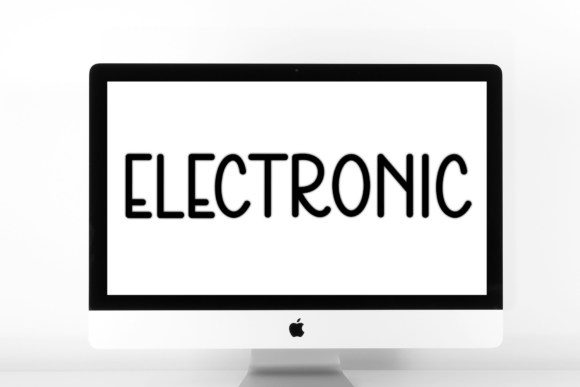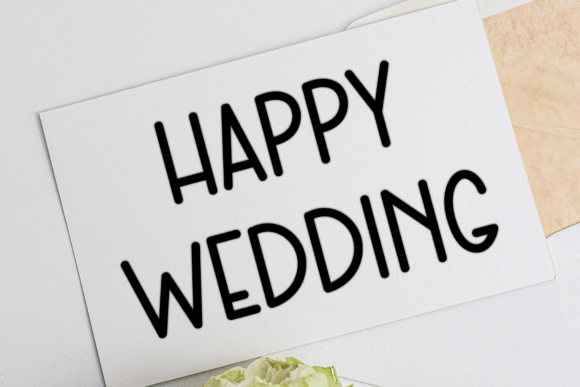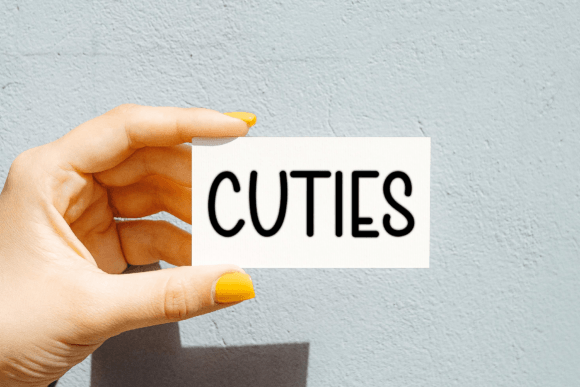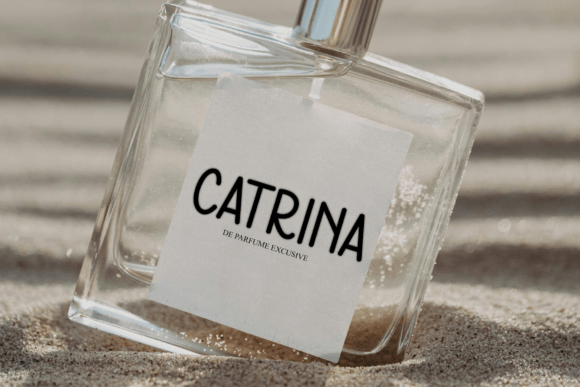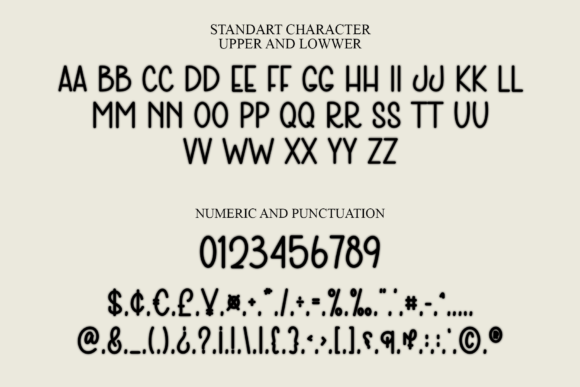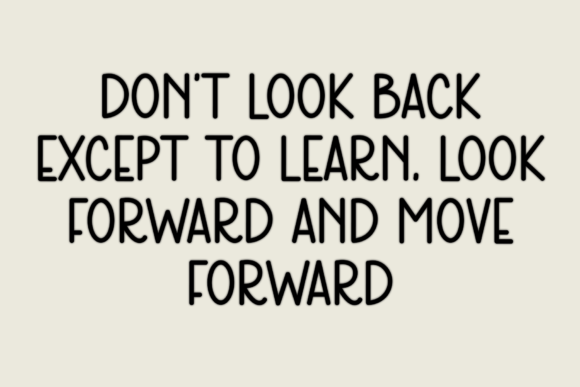
The Perfect Font for a Fresh Start: Discovering February Font
I still remember the design project that led me to discover February Font. I was working on a branding project for a new wellness center, and I was struggling to find the right font that conveyed a sense of calmness and approachability. The client wanted something that felt fresh and elegant, but not too formal. After hours of searching, I stumbled upon February Font, and it was love at first sight! ✨
A Personal Review of February Font
- ✨ Fluid strokes and organic lines that give it a laid-back vibe
- ✅ Perfect for branding, invitations, and social media graphics
- ✅ Easy to read, even in smaller sizes
- ✅ Works well with both light and dark backgrounds
While February Font is an amazing display font, it does have a few quirks to consider: 🤔
- ⚠️ May not be suitable for body text or long paragraphs
- ⚠️ Limited availability of certain characters and glyphs
The Backstory of February Font
February Font was designed by a talented type designer who wanted to create a font that captured the essence of a fresh start. Inspired by the beauty of nature and the laid-back vibe of a beachside moment, February Font was born. 🌴
The designer aimed to create a font that was both elegant and approachable, perfect for designers and crafters looking for a unique touch. And with its fluid strokes and organic lines, February Font is sure to bring a sense of warmth and personality to any design project.
Q: What type of projects is February Font best suited for?
A: February Font is perfect for branding, invitations, social media graphics, and any project that requires a fresh and elegant touch.
Q: Can I use February Font for body text?
A: While February Font is a beautiful display font, it’s not recommended for body text or long paragraphs. Its fluid strokes and organic lines are best suited for headings and titles.
Q: Is February Font available in different weights and styles?
A: Currently, February Font is available in a single weight and style. However, the designer may release additional weights and styles in the future.